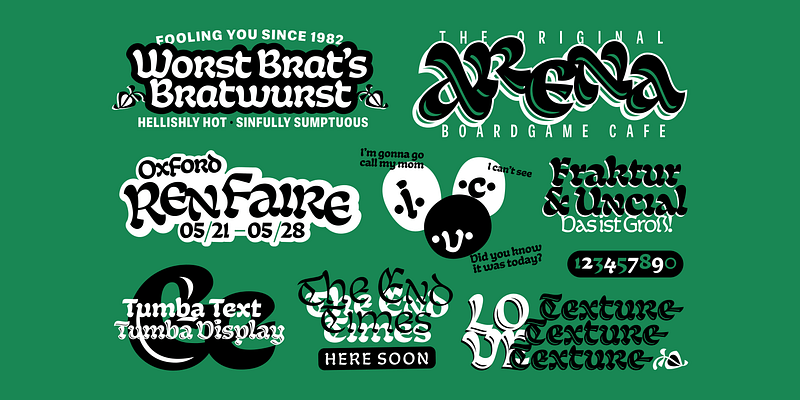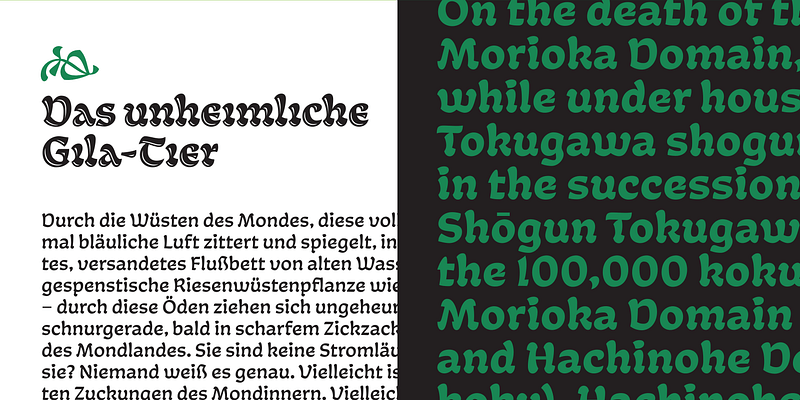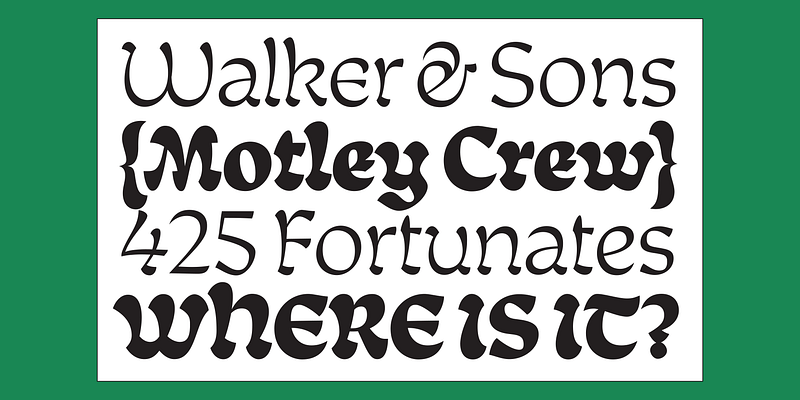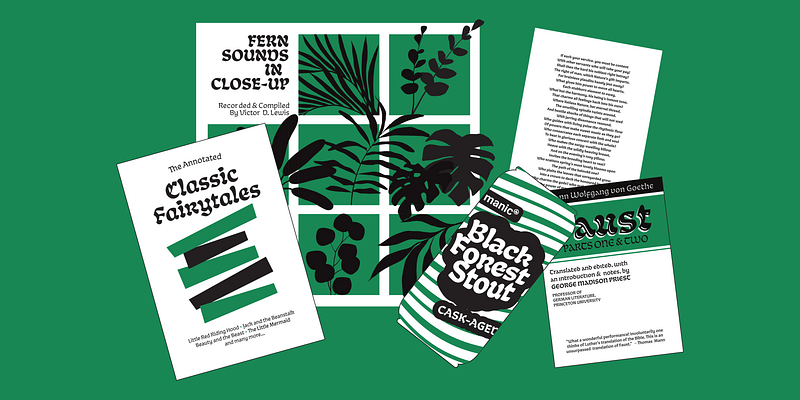
Tumba is a mishmash of uncial and fraktur calligraphy influences. It combines specific details from each of its origins, to create a contemporary yet medieval typeface. Suited for beer halls and bed time story books. Or a beer hall inspired bed time story book (for those of a suitable age of course!). The best of both worlds!